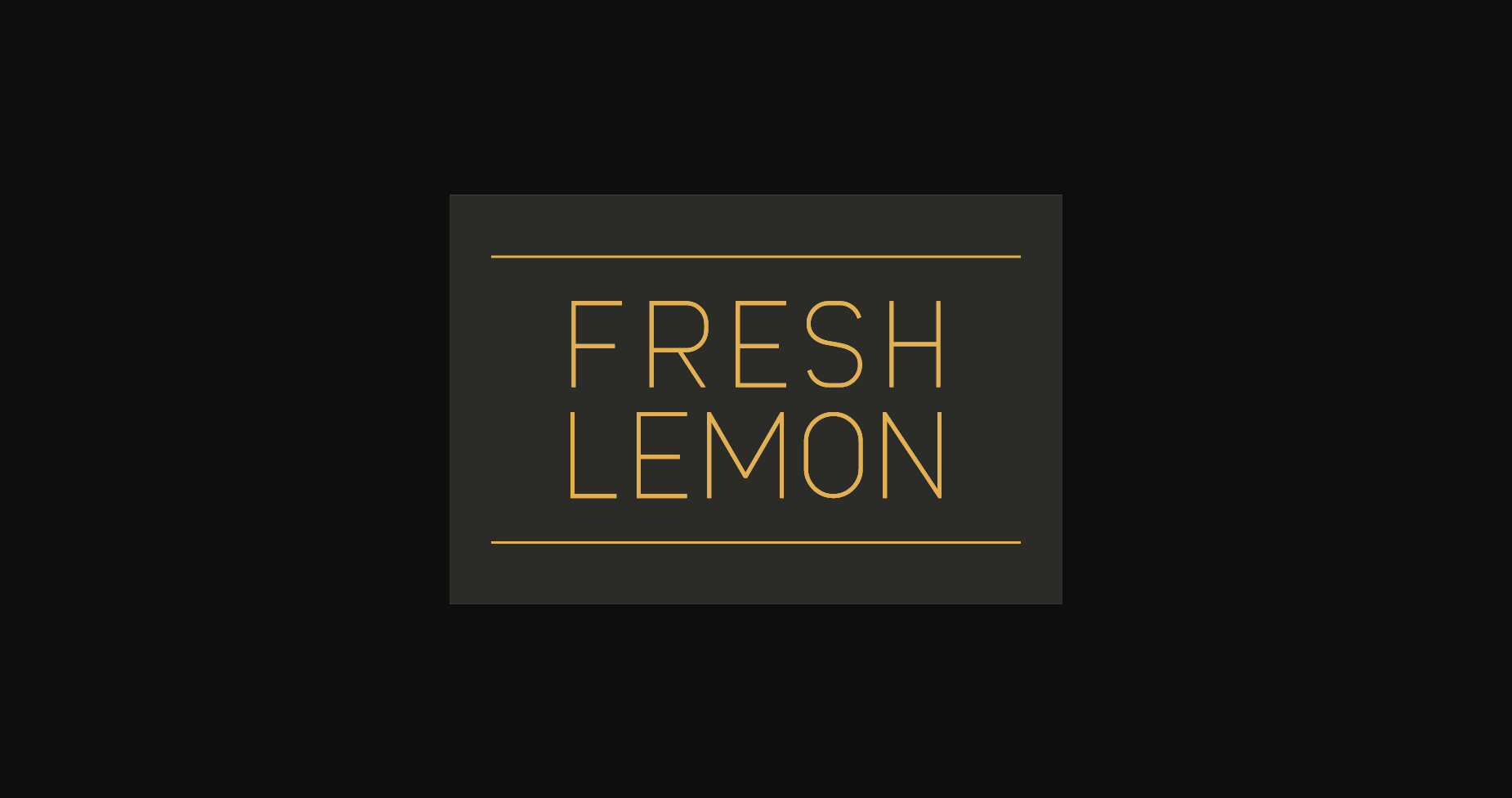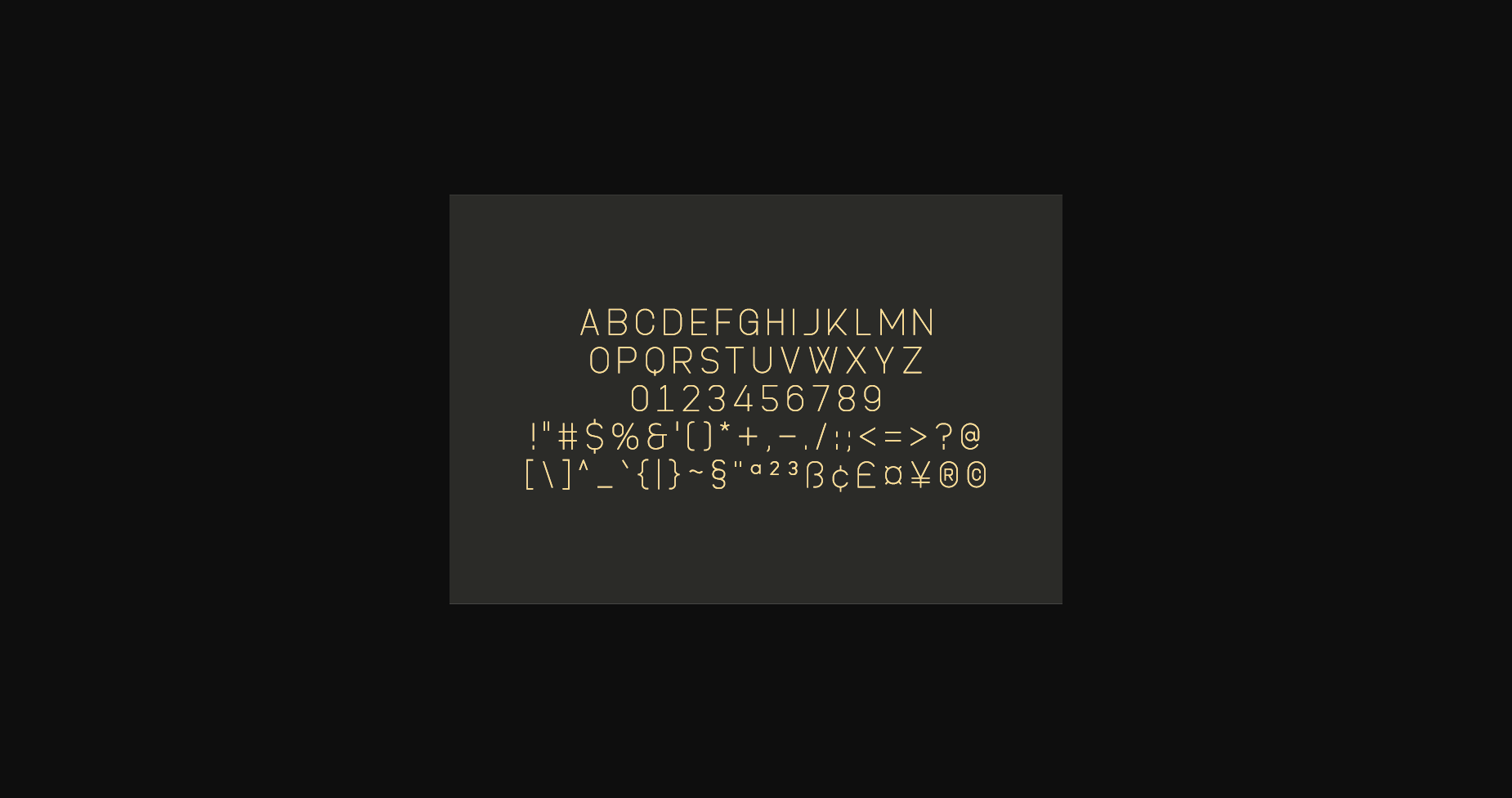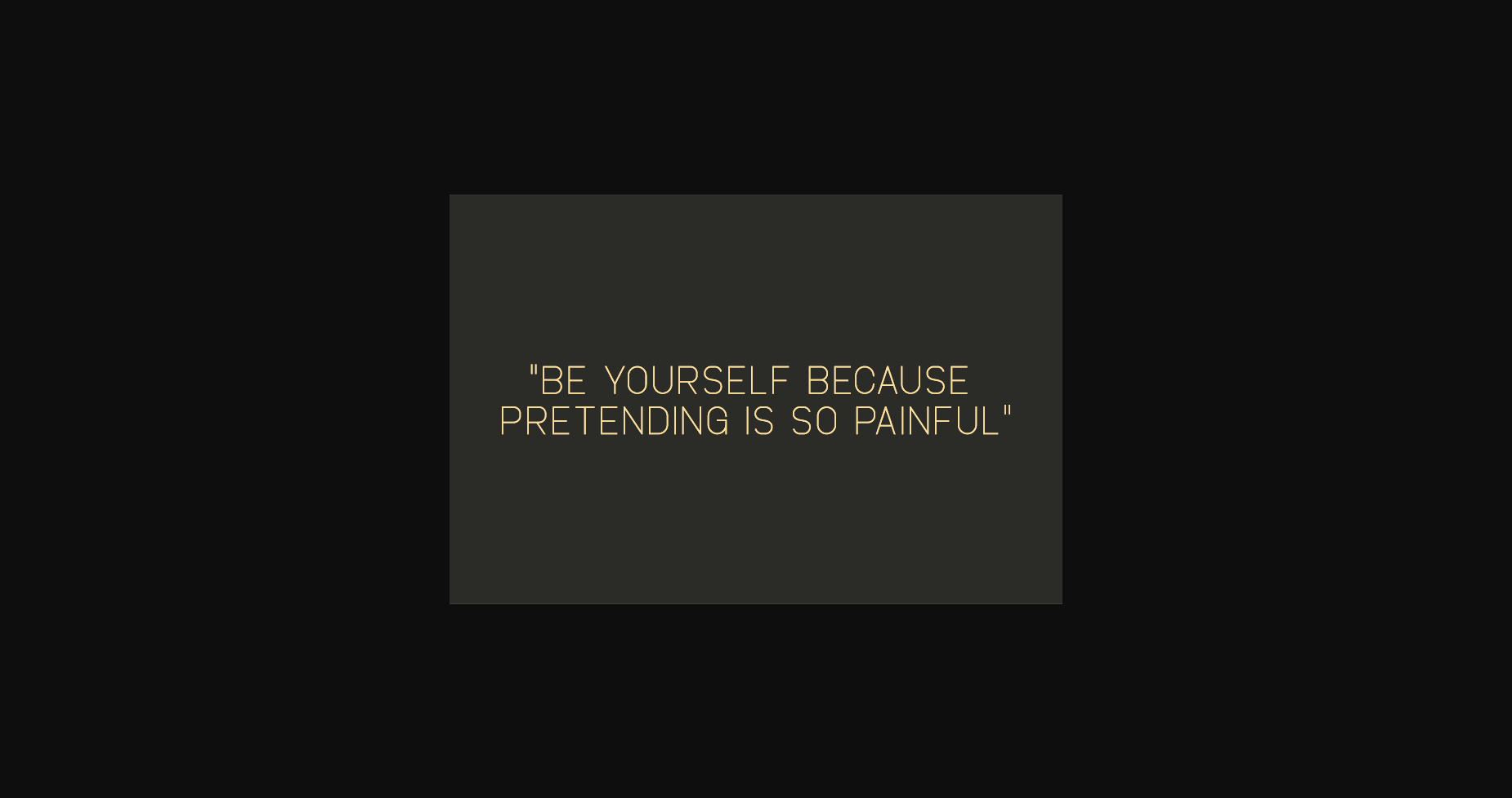
Fresh Lemon Font
About Fresh Lemon Font
Fresh Lemon is a modern and elegant all-caps sans serif font. With smooth and clean lines, just a touch of contrast, and versatile style, this font works beautifully for logos, branding, web headings, and many more. Add it to your favorite creative projects, and notice how it makes them come alive!